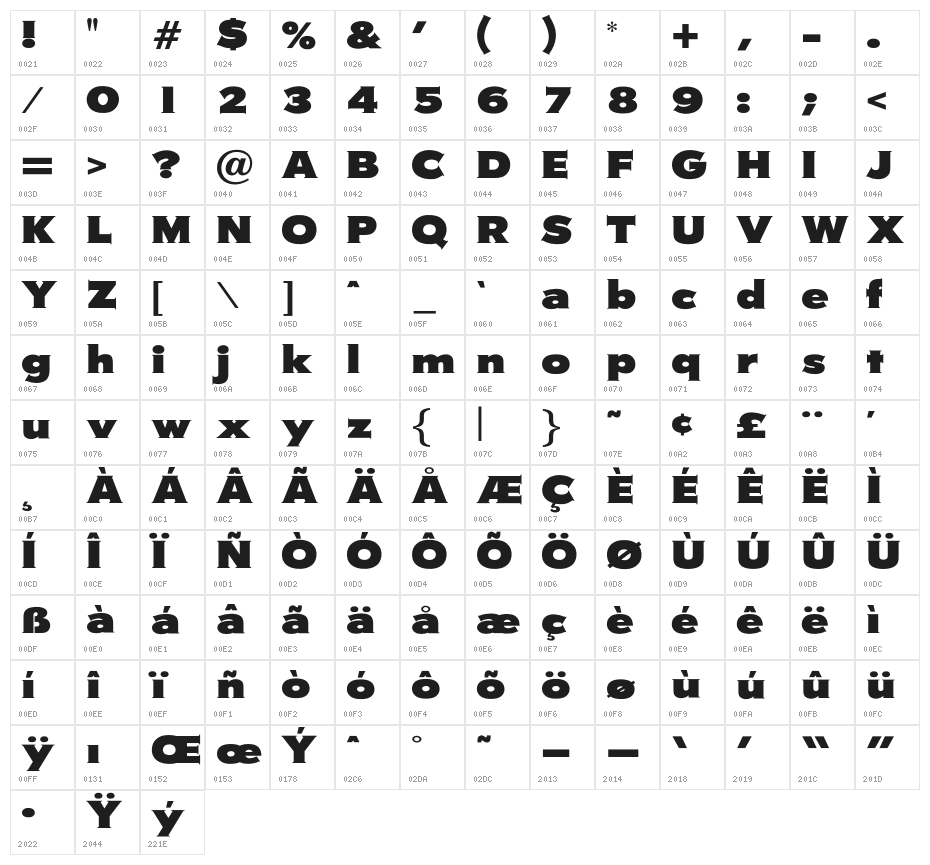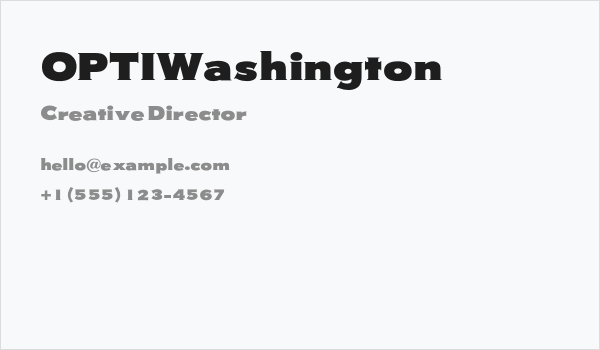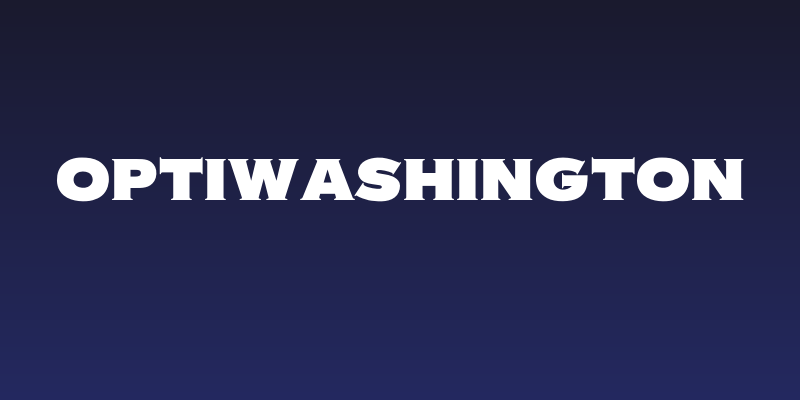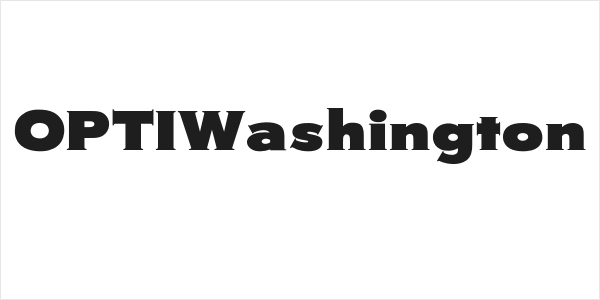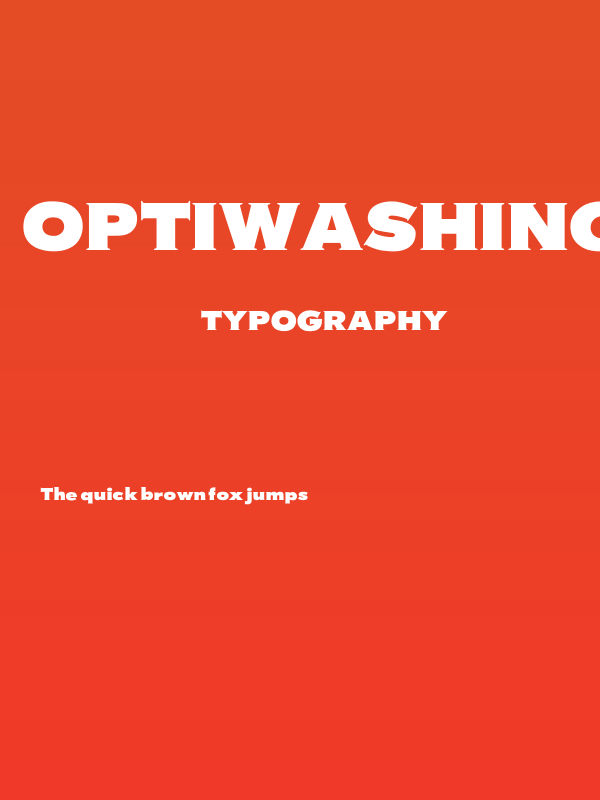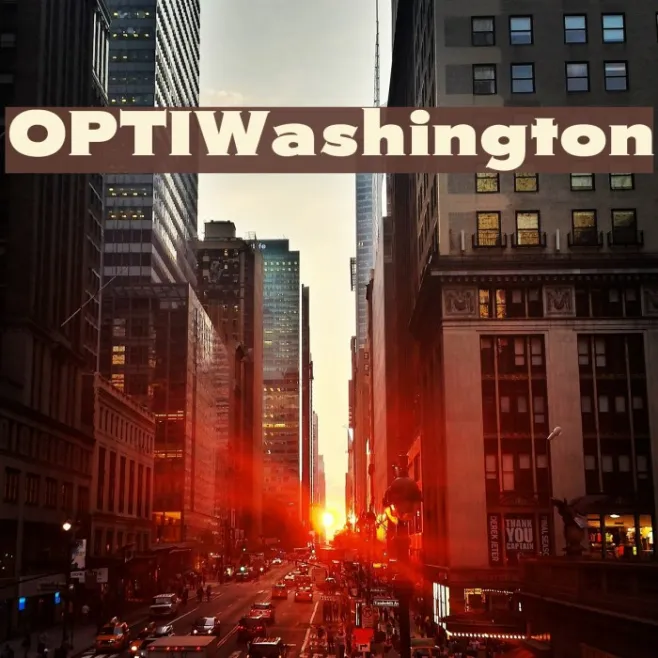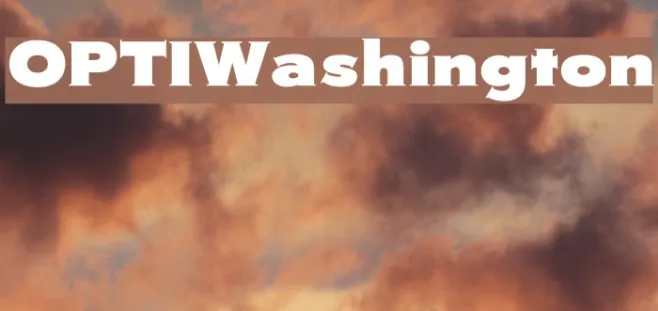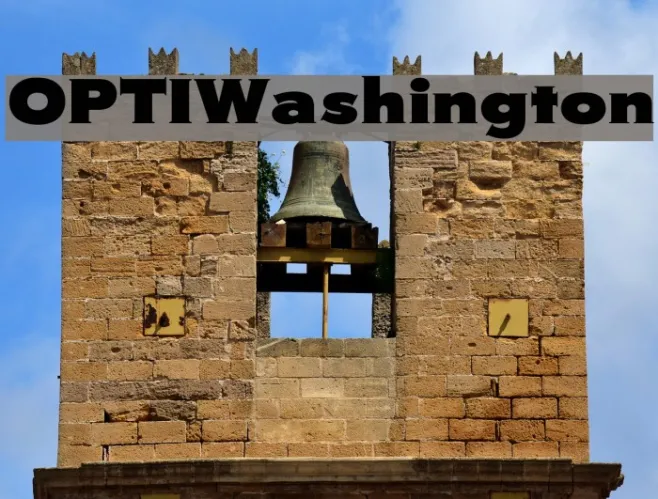
OPTIWashington Font
OPTIWashington Description
This font is a bold and striking typeface with a strong presence. The characters are designed with thick, uniform strokes that give it a robust and impactful appearance. The uppercase letters are particularly commanding, with sharp angles and a solid structure. The lowercase letters maintain the same boldness, ensuring consistency across the typeface. The numerals are equally bold, making them stand out clearly. Special characters are designed to match the overall bold aesthetic, providing a cohesive look. This font is ideal for making a statement and drawing attention.